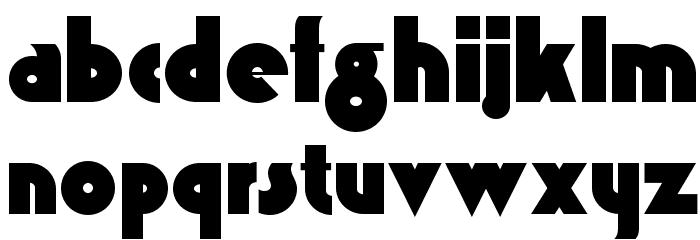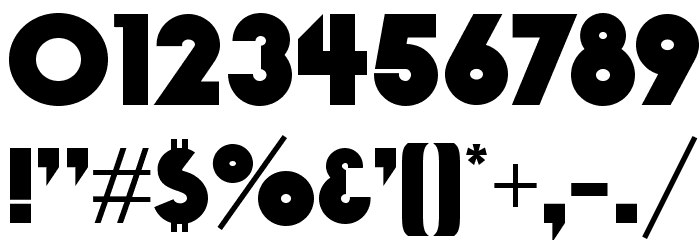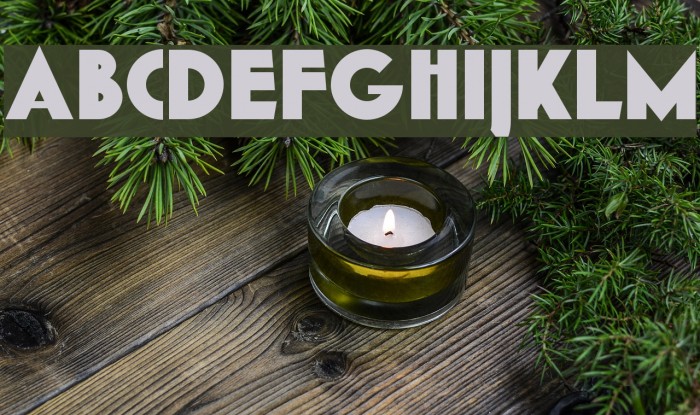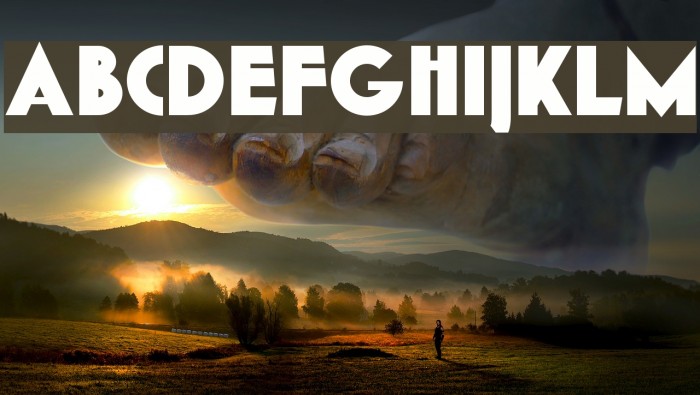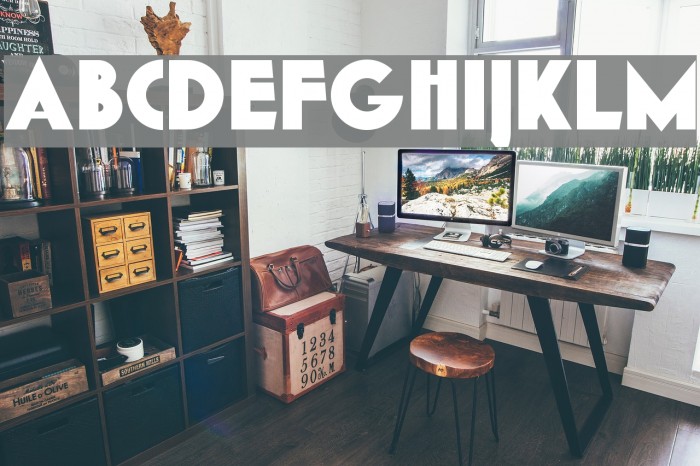
K22 Gadget Font
This font features a bold, geometric style with strong, angular lines and a modern aesthetic. The uppercase letters are characterized by their sharp edges and uniform thickness, creating a striking and impactful appearance. The lowercase letters maintain the boldness, with rounded elements that add a touch of softness to the overall design. The numerals are consistent with the alphabet, offering a cohesive look across all characters. Special characters are designed with the same bold and geometric approach, ensuring they stand out while maintaining readability. This font is ideal for making a statement in any design project, offering a unique blend of modernity and boldness.
A bold, geometric font with sharp, angular lines and a modern aesthetic.
- Proposed Projects: Ideal for branding, logos, posters, and headlines where a strong visual impact is desired.